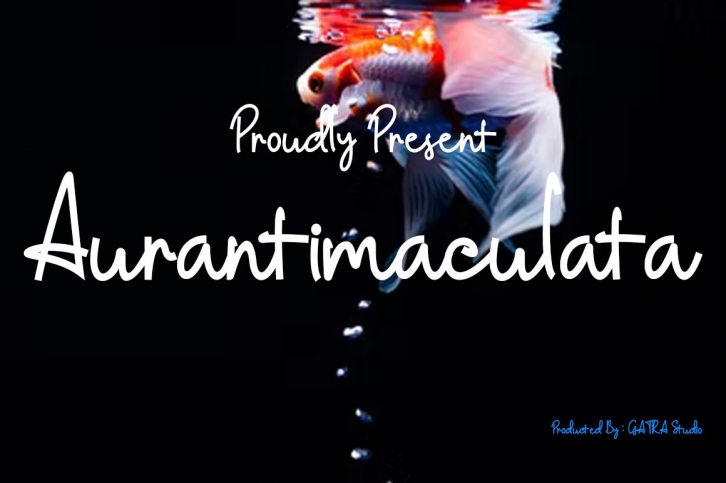
Aurantimaculata is a trendy and unique font with an authentic style. It was designed by Gatra Std and it's a great choice for creative people who need such a font. It was released on February 15, 2022 and the file size is 15.48 MB. Aurantimaculata will add an organic vibe to any design idea!